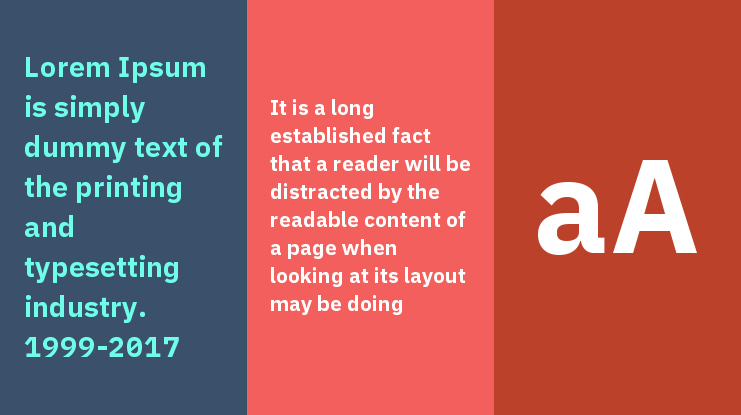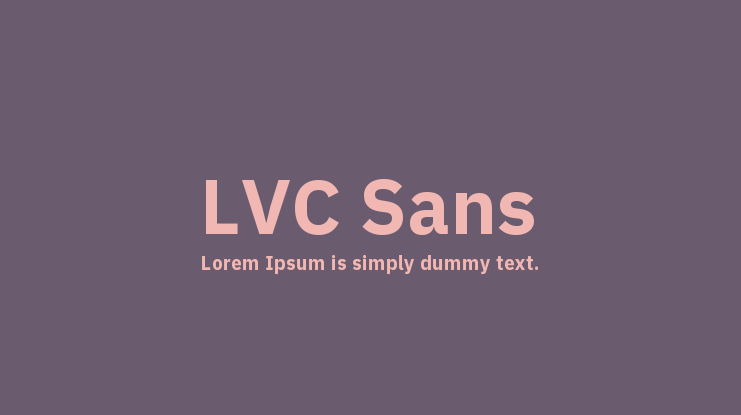
LVC Sans Font Family
Mike Abbink, Paul van der Laan, Pieter van Rosmalen
LVC Sans is a modification of IBM Plex Sans fonts - the key modifications are the glyphs containing "g" and the use of a slashed zero. This family contains only four weights.